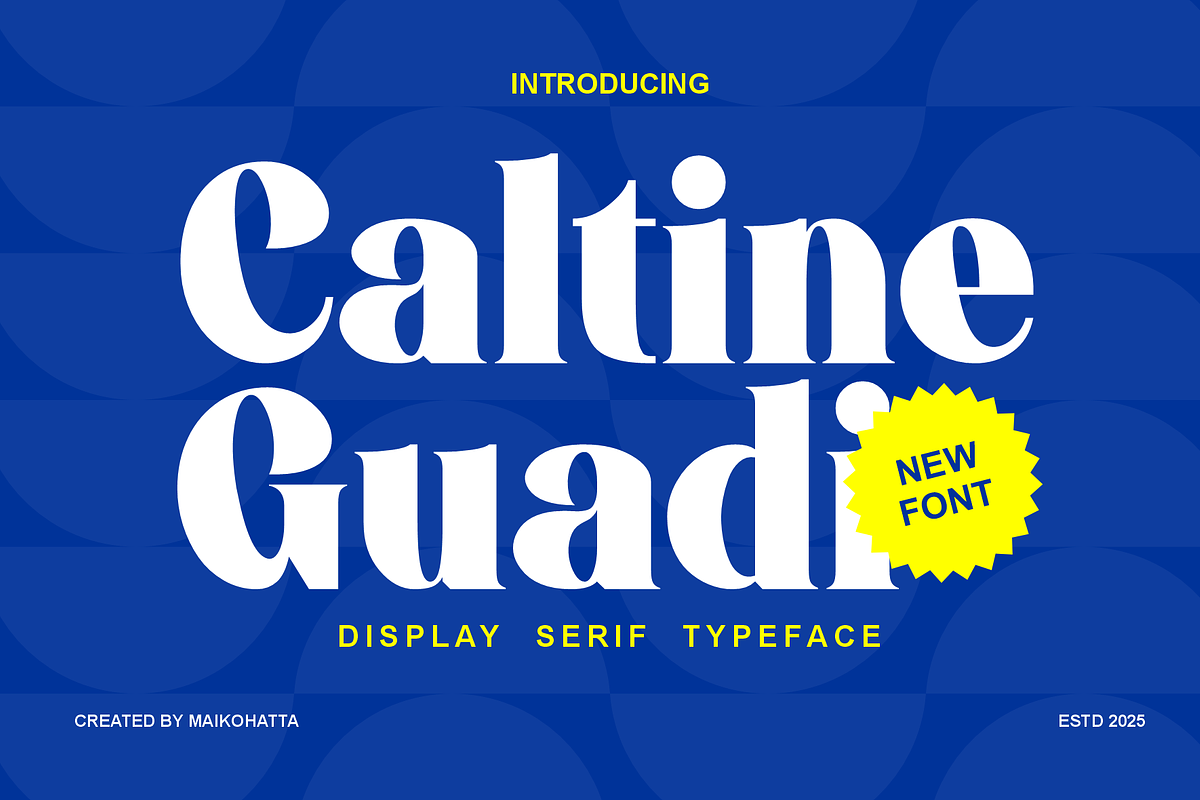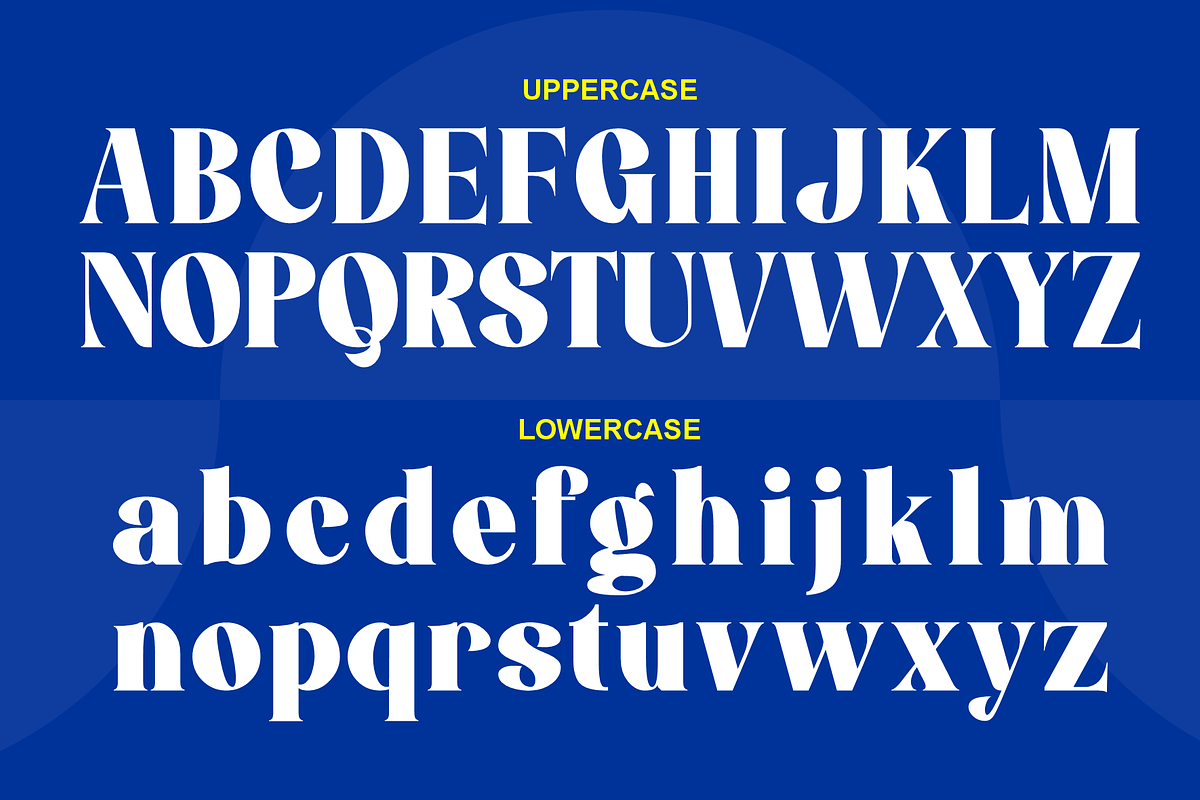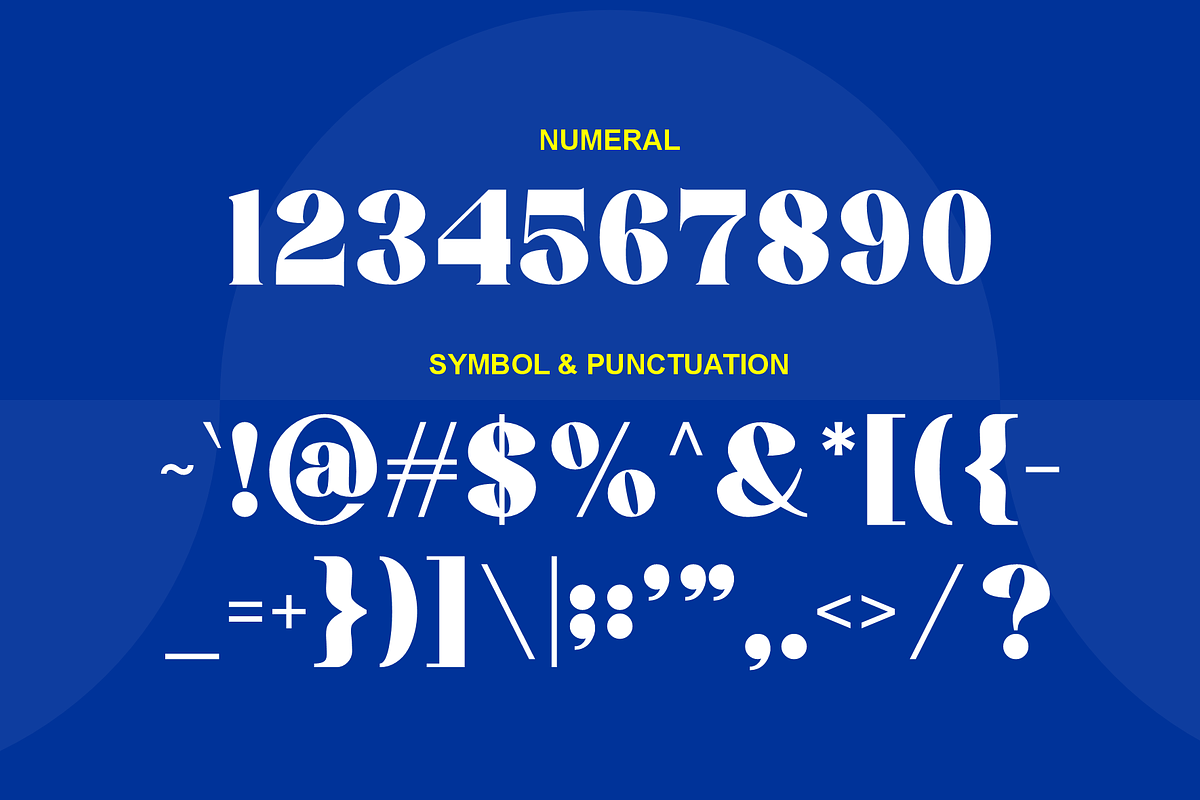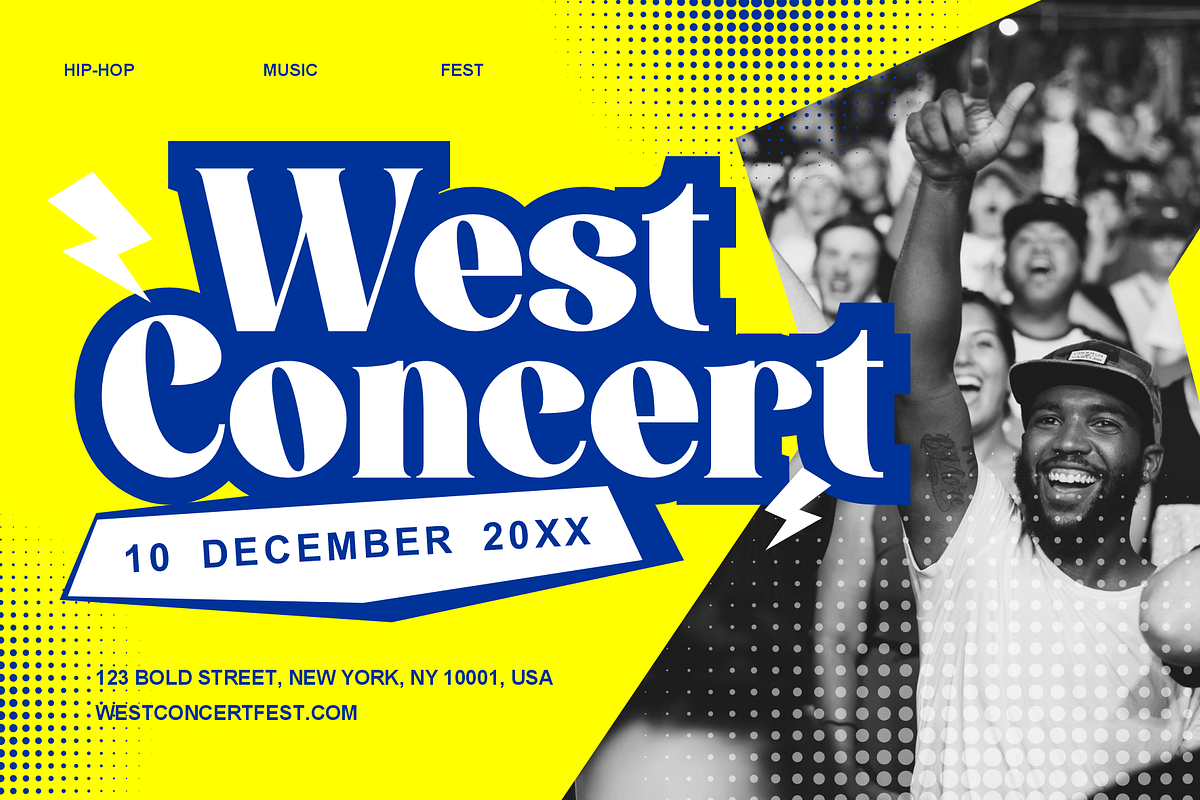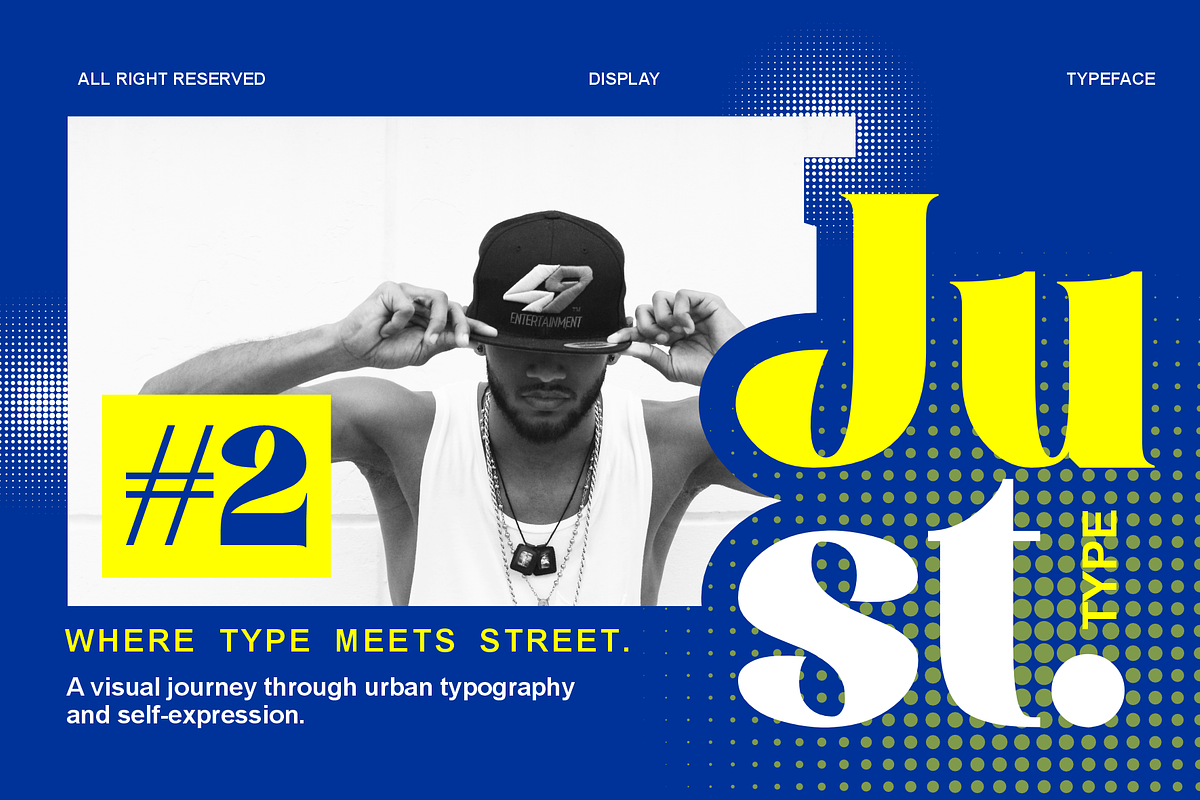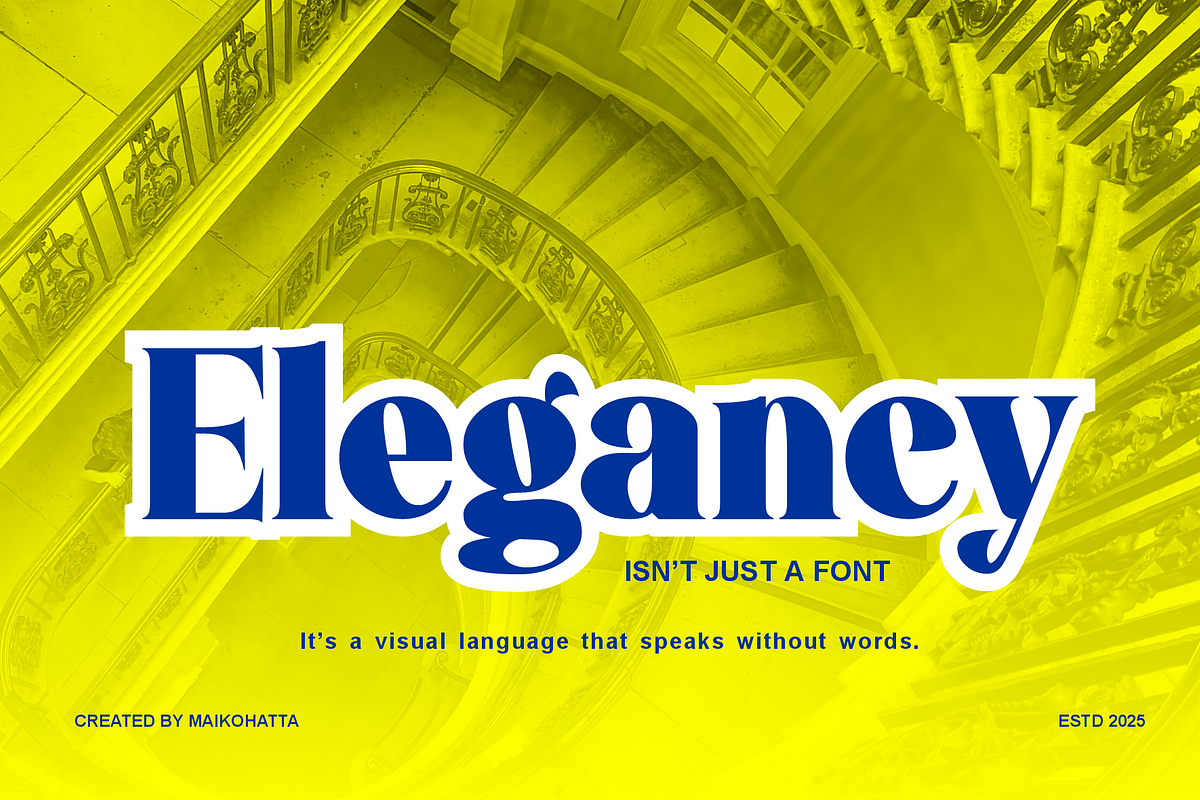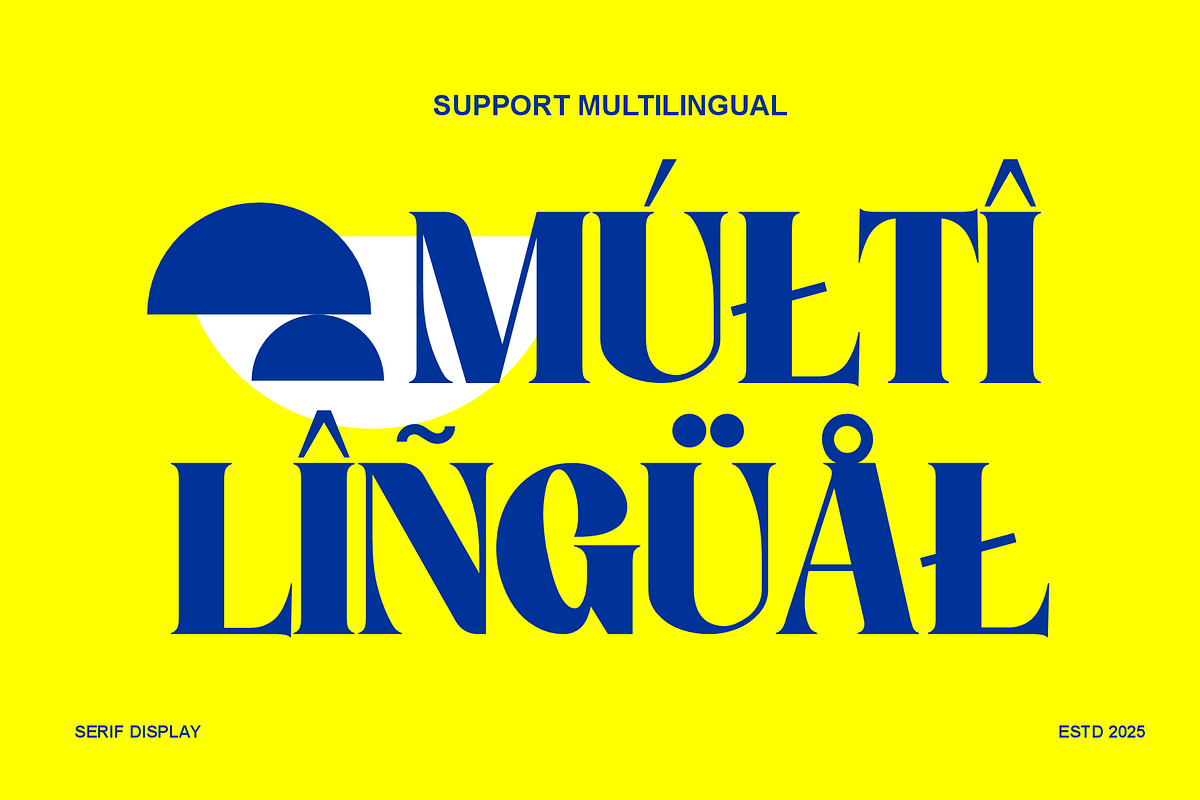
Caltine Guadi–Display Serif Typeface
Caltine Guadi – Display Serif Typeface
Caltine Guadi is a bold and stylish display serif font that blends classic sophistication with a touch of modern flair. Featuring high contrast strokes, distinctive curves, and unique cut serifs, this typeface captures attention effortlessly. Its confident, artistic shapes make it perfect for editorials, branding, packaging, logos, and headlines that demand a luxurious yet contemporary feel.